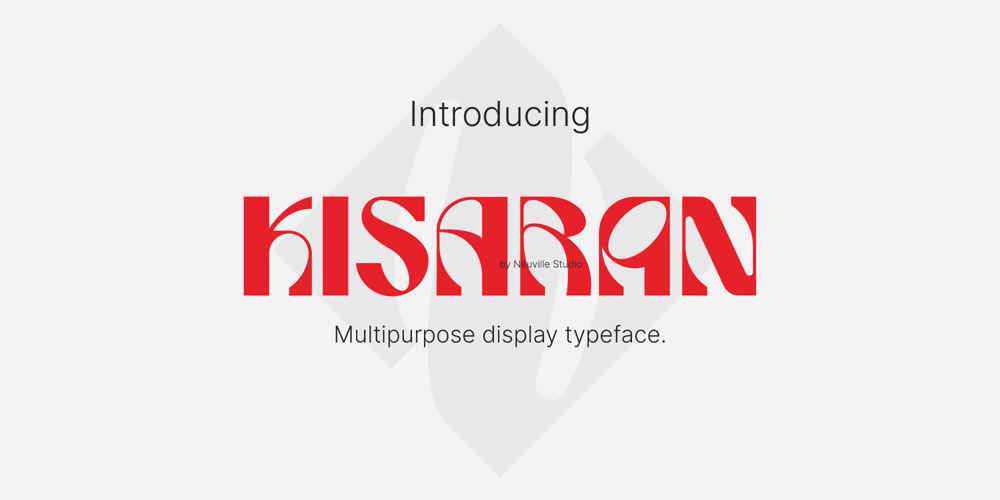
Kisaran Font Family was designed by published by Zulfahmi Al Ridhawi. Kisaran contains 1 styles and family package options. Introducing Kisaran, a multipurpose display font designed for branding, posters, and more. This old-style display font adds a touch of timeless elegance to your designs. With multilanguage support and alternate characters, Kisaran ensures flexibility and personalized charm for every project. Elevate your creativity effortlessly with this versatile font.